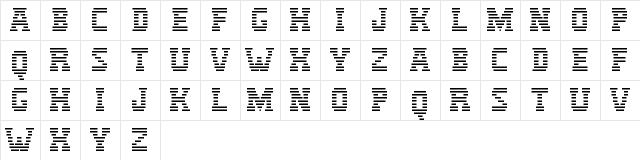
IBM Logo Regular
| Designer | Janos |
Design Context for IBM Logo Typeface
IBM Logo is a composed and adaptable typeface that performs quietly and consistently across a wide range of design contexts.